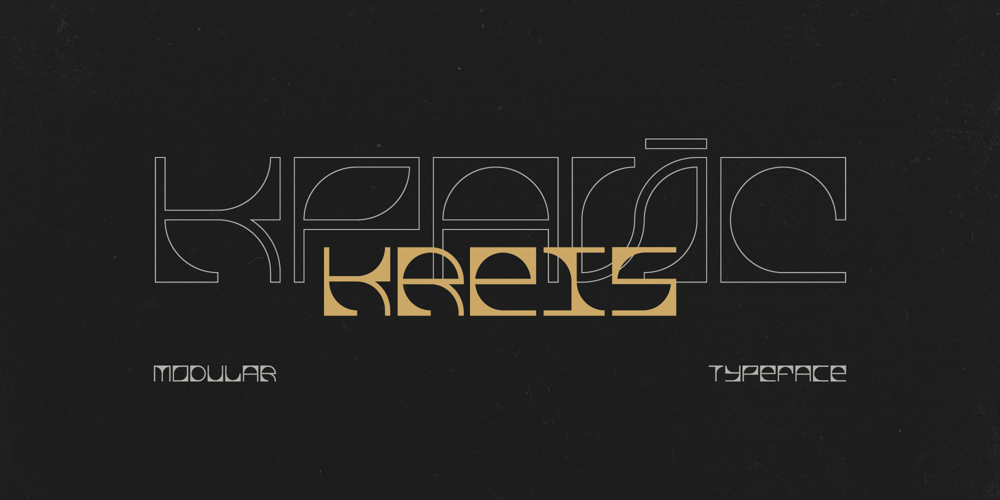
Kreis Font Family was designed by Katerina Korolevtseva and published by Kateryna Korolevtseva. Kreis contains 1 styles and family package options. KREIS is a modular typeface created by Ukrainian designer Kateryna Korolevtseva. KREIS has a modern sharp character inspired by the shape of an old-school CD disk. It consists of three simple modules with the roots in square and circle shapes.Letterforms create a geometric typographic pattern, but at the same time, it remains readable. KREIS works best in headings, logos, and strong messages.If you want to look strong — use KREIS.If you want to protest — use KREIS.If you want to be heard — use KREIS.